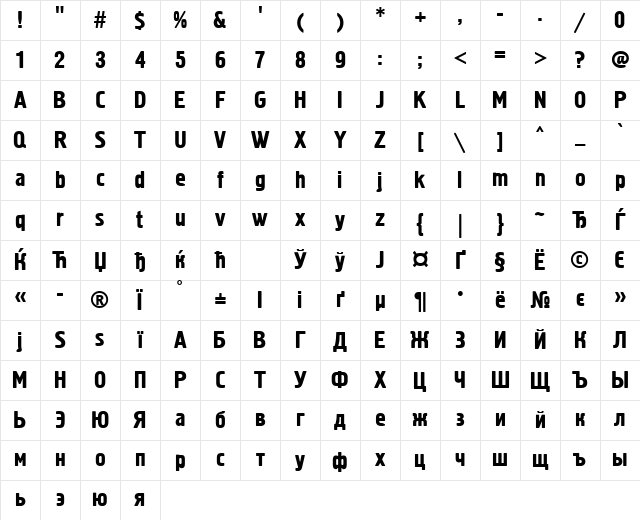
font296 Regular
Design Context for font296
font296 is a composed and adaptable typeface that performs quietly and consistently across a wide range of design contexts.